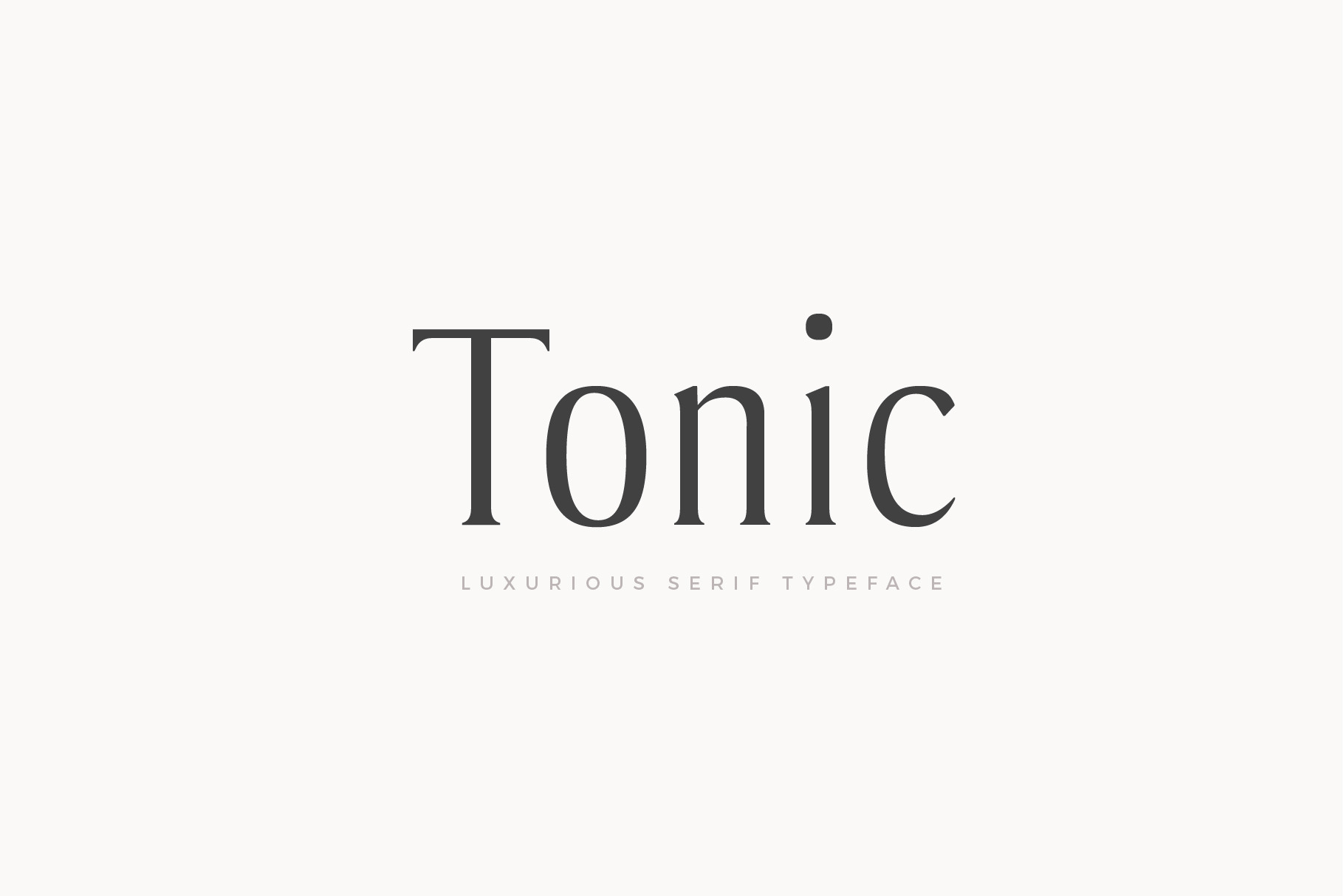
Tonic - Luxurious Serif Typeface
Tonic a condensed serif typeface. It has a little bit of personality and can be used for headers and body copy but is mainly intended for headers. This font family includes all Latin characters (including accents), numbers, special characters, and punctuation.